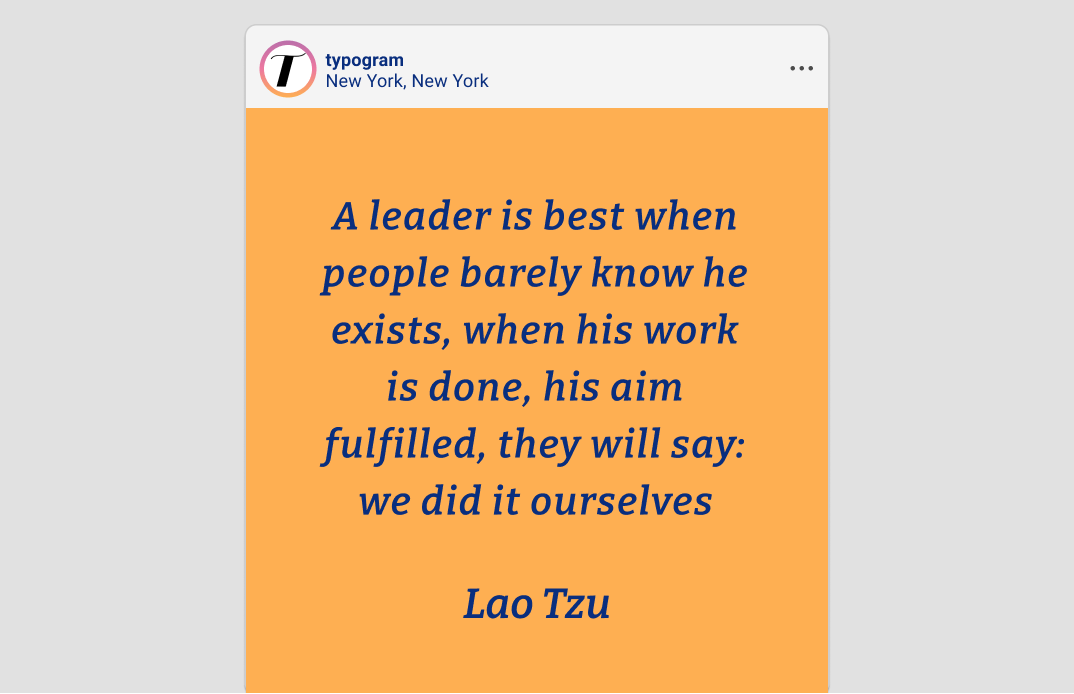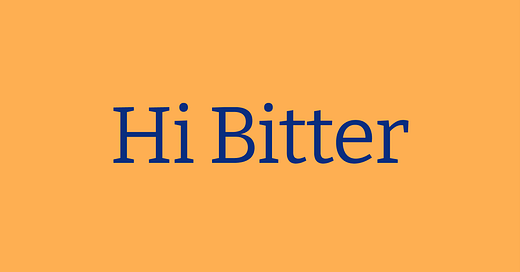
FontDiscovery 🖼️ 118: Introducing Typogram Community!
This week, enjoy one of my favorite issues on the font Bitter, a great open sourced font perfect for reading on the web.
Font of the Week: Bitter